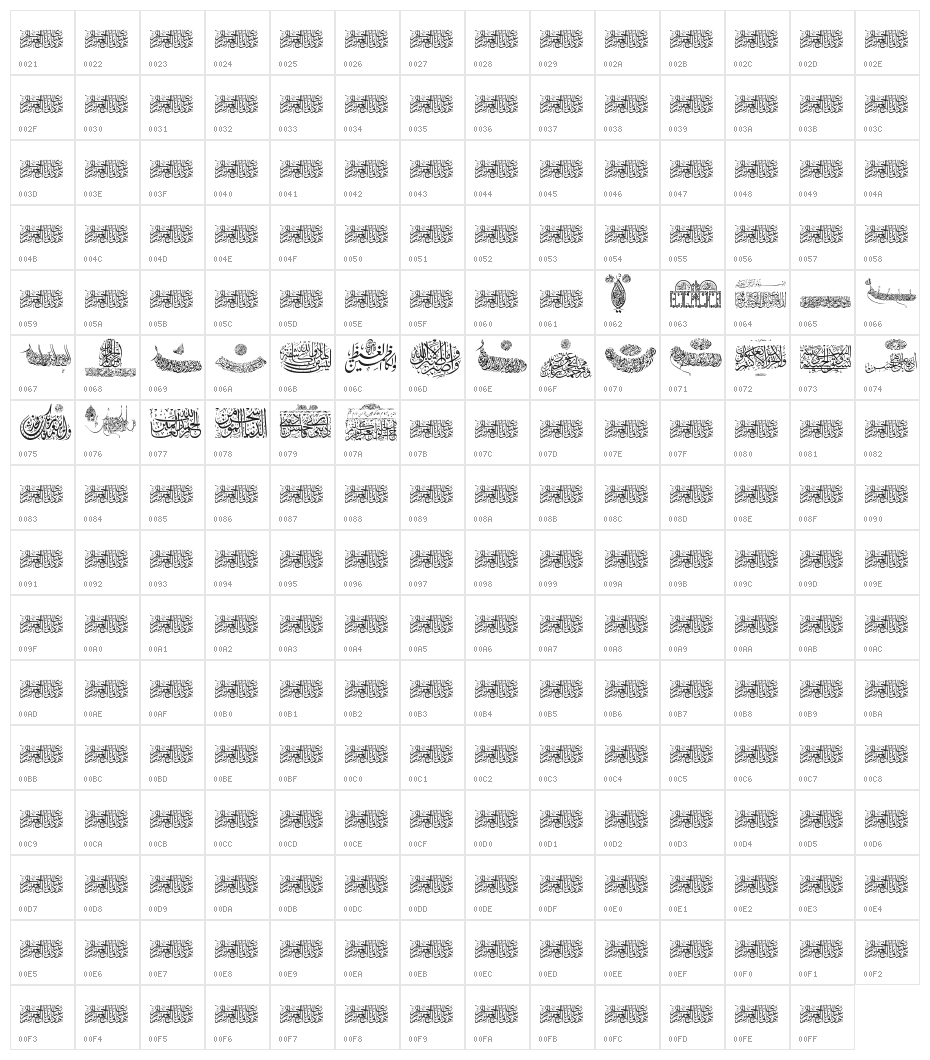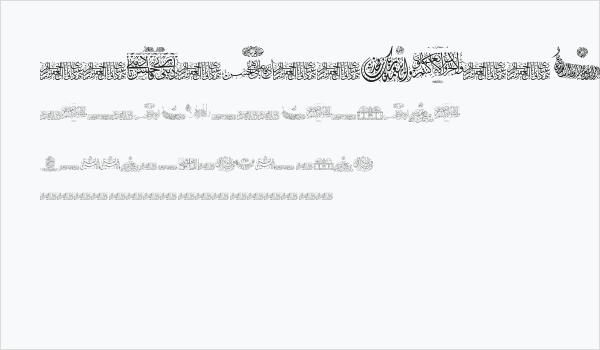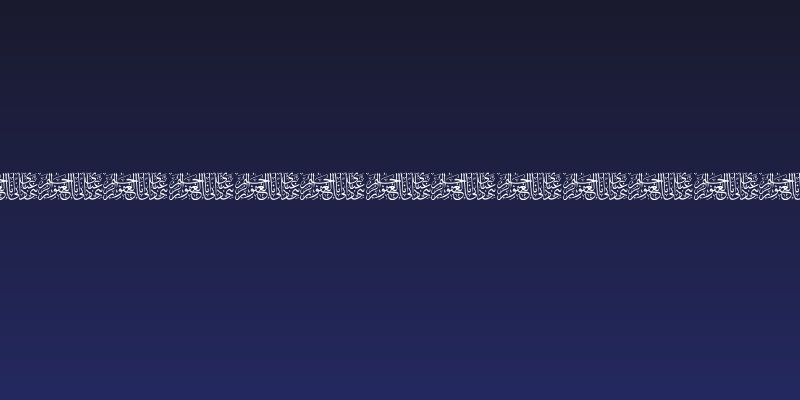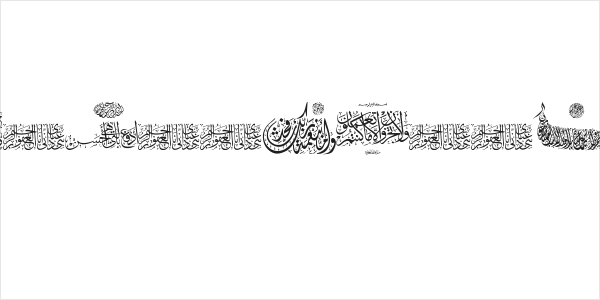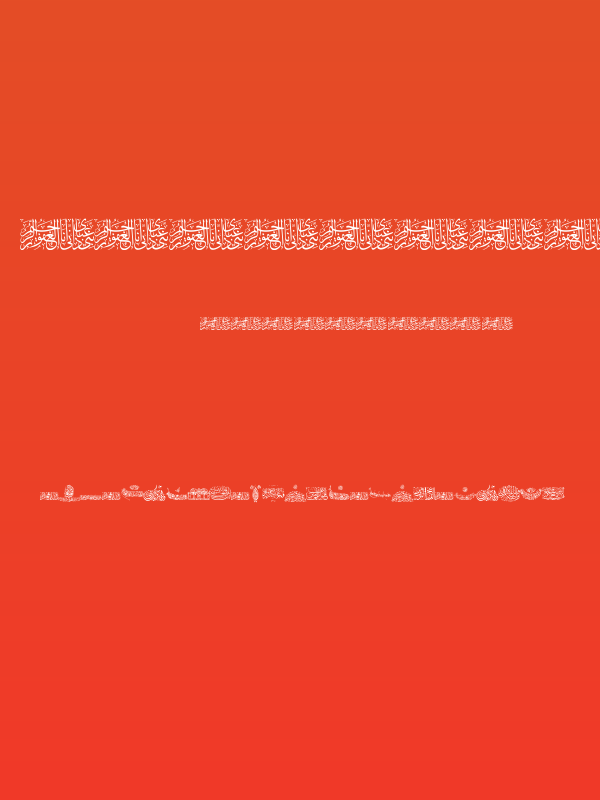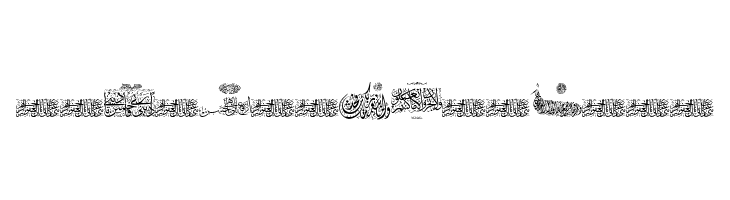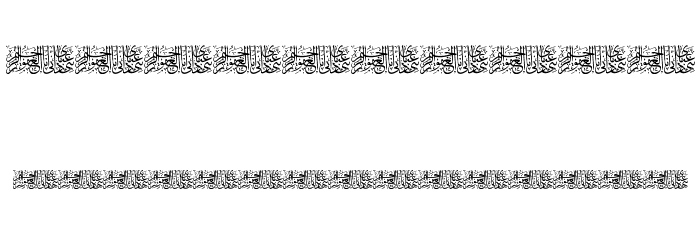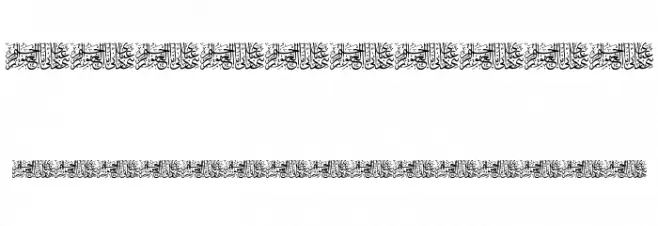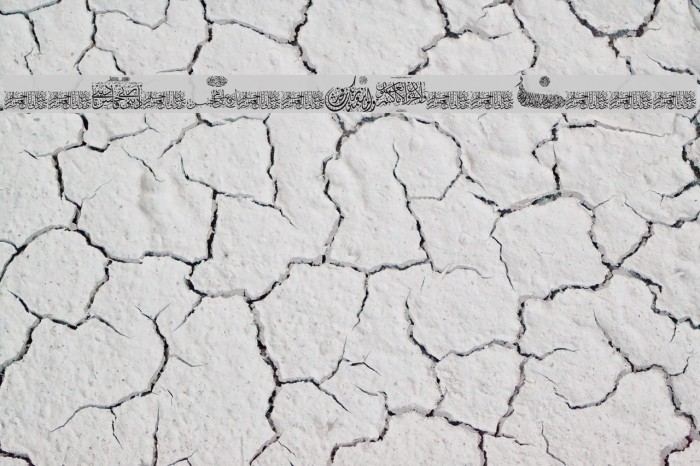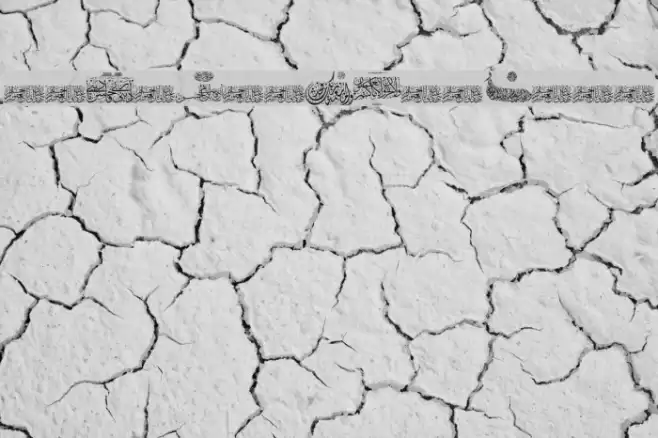
Aayat Quraan 21 Font
Aayat Quraan 21 Description
This script is a highly decorative and intricate Arabic calligraphy style, often used in religious texts and artistic expressions. The characters are elegantly interwoven, creating a flowing and harmonious appearance. The script features a high level of detail, with each letter meticulously crafted to form a cohesive and visually appealing design. The use of thick and thin strokes adds depth and dimension, enhancing the overall aesthetic. This style is traditionally used in Islamic art and architecture, reflecting cultural and spiritual significance.
| Overall Style | Traditional, Decorative |
| Use Case | Religious texts, Artistic displays |
| Proposed Projects | Ideal for religious texts, artistic calligraphy pieces, architectural designs, and cultural exhibitions. |